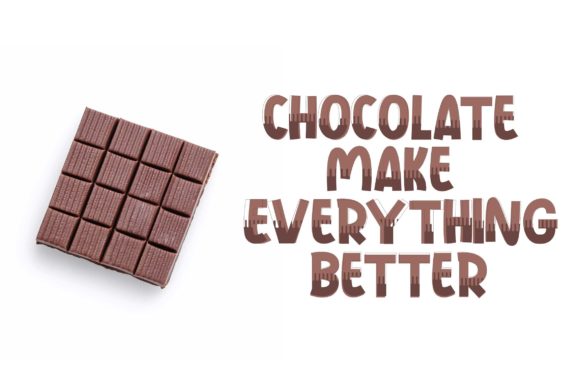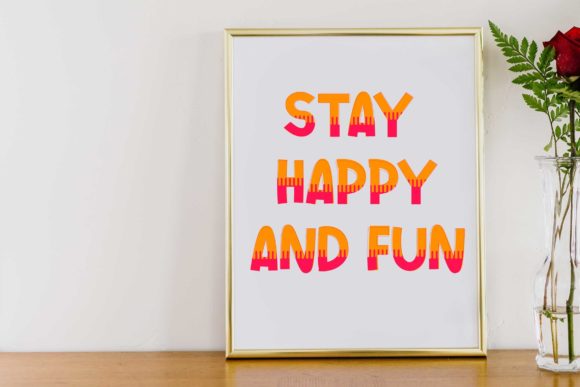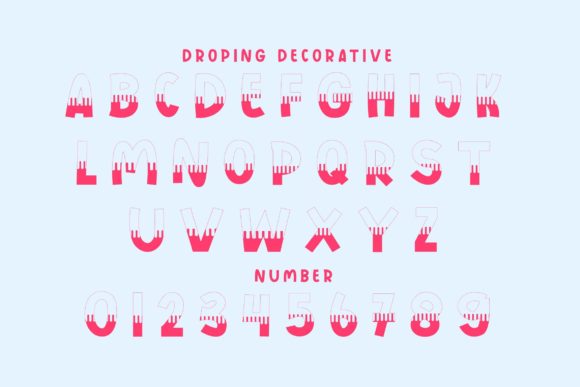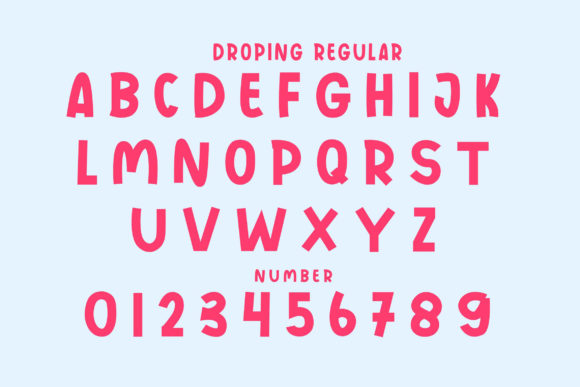
Introducing Dropping Font: The Ultimate Decorative and Display Duo for Creative Minds
Are you a designer, crafter, or creative enthusiast looking for a unique and whimsical font to elevate your projects? Look no further than Dropping Font, a decorative and display duo font designed to bring your ideas to life. With its playful and colorful vibe, Dropping Font is perfect for a wide range of creative applications, from posters and cartoons to children’s theme designs, t-shirts, and digital designs.
What Makes Dropping Font So Special?
Dropping Font is more than just a font – it’s a statement piece. Its unique and whimsical design makes it stand out from the crowd, adding a touch of playfulness and personality to any project. Whether you’re creating a poster for a children’s event, designing a t-shirt for a kids’ birthday party, or crafting a digital design for a client’s project, Dropping Font is the perfect choice.
With Dropping Font, the creative possibilities are endless. Here are just a few ideas to get you started:
- Posters: Create eye-catching posters for events, promotions, or announcements that will grab attention and leave a lasting impression.
- Cartoons: Add a playful touch to your cartoons and animations with Dropping Font’s fun and quirky design.
- Children’s Theme Designs: Create engaging and interactive designs for children’s products, such as toys, games, and books.
- T-Shirts: Design custom t-shirts for kids’ birthday parties, events, or everyday wear that will make a statement.
- Digital Designs: Use Dropping Font to create stunning digital designs for clients, including social media graphics, email headers, and website elements.
Why Choose Dropping Font?
So why choose Dropping Font over other fonts? Here are just a few reasons:
- Unique Design: Dropping Font’s unique and whimsical design sets it apart from other fonts, ensuring your projects will stand out.
- Versatility: Dropping Font is perfect for a wide range of creative applications, from posters and cartoons to digital designs.
- Colorful: Dropping Font adds a pop of color to your projects, making them more engaging and visually appealing.
Tips for Using Dropping Font
Here are a few tips for getting the most out of Dropping Font:
- Experiment with Colors: Try out different color combinations to find the perfect match for your project.
- Play with Sizes: Experiment with different font sizes to create visual interest and hierarchy.
- Mix and Match: Combine Dropping Font with other fonts to create a unique and eye-catching design.
| Font Name | Droping Font |
| Author | handles creative |
Dropping Font is a game-changer for designers and crafters looking to add a touch of whimsy and personality to their projects. With its unique and colorful design, Dropping Font is perfect for a wide range of creative applications. Whether you’re a seasoned pro or just starting out, Dropping Font is a must-have font duo that will take your designs to the next level. So why wait? Add Dropping Font to your creative toolkit today and watch your projects come to life!